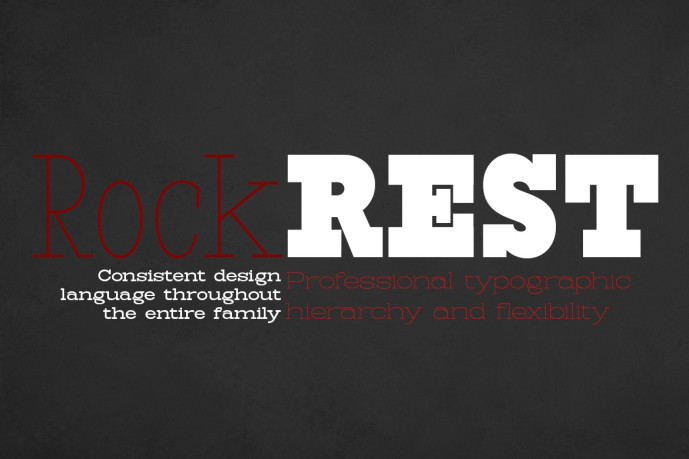
Rock Rest Font
Rock Rest Font is a versatile serif typeface family designed to bring strength, clarity, and timeless character to a wide range of design applications. Created with robust serifs, balanced proportions, and a contemporary structure, RockRest combines the confidence of a classic serif typeface with the flexibility required by visual communication.
With 45 styles, RockRest covers everything from condensed to extended widths and from thin to black weights, providing designers with a complete typographic system for everything from editorial layouts to corporate branding, packaging, advertising, and digital interfaces.
Condensed styles maximize space efficiency while maintaining excellent readability, making them ideal for headlines, narrow columns, and impactful display typography. Standard-width styles offer balanced proportions suitable for both text and branding applications, while expanded variants create a bold visual presence with enhanced personality and impact.
RockRest ‘s meticulously designed typefaces feature robust serifs, clean stroke transitions, and consistent spacing, ensuring a harmonious appearance regardless of weight or width. Lighter models convey elegance and sophistication, while heavier models project authority, stability, and confidence.
Whether used for impactful headlines, refined editorial design, contemporary branding, or large-scale visual identities, **RockRest** offers the versatility and typographic depth needed to create consistent and expressive design systems.